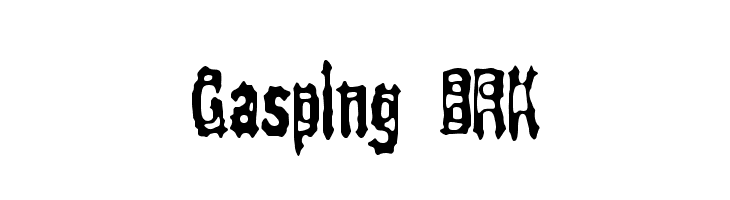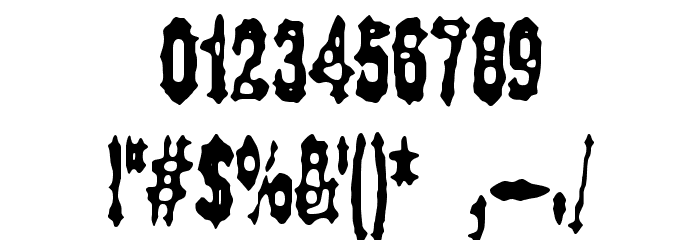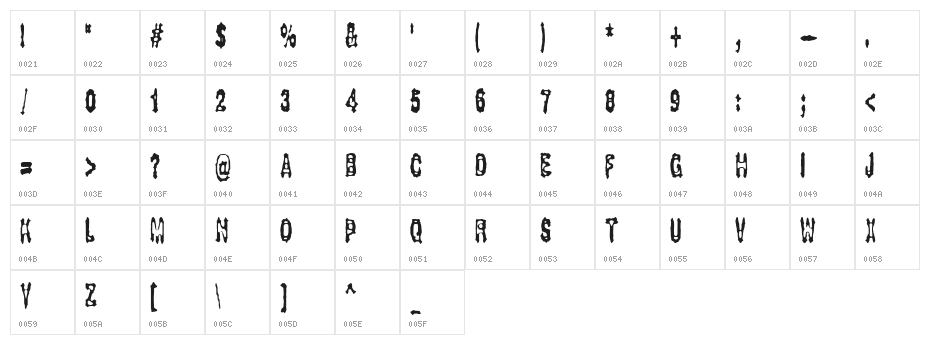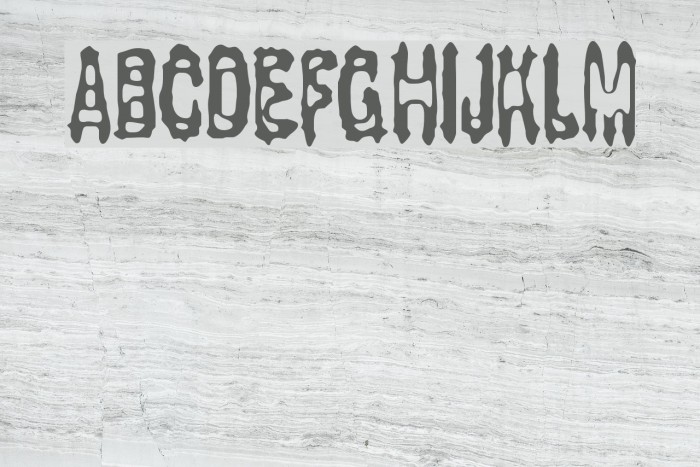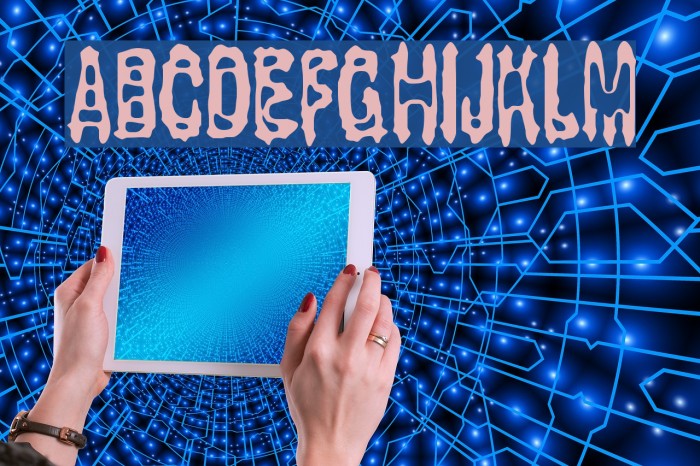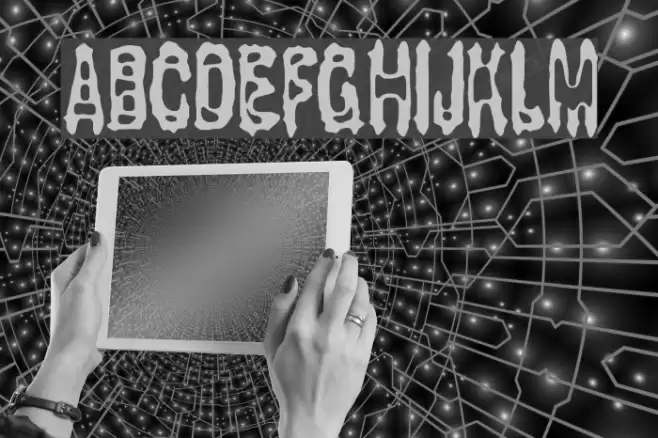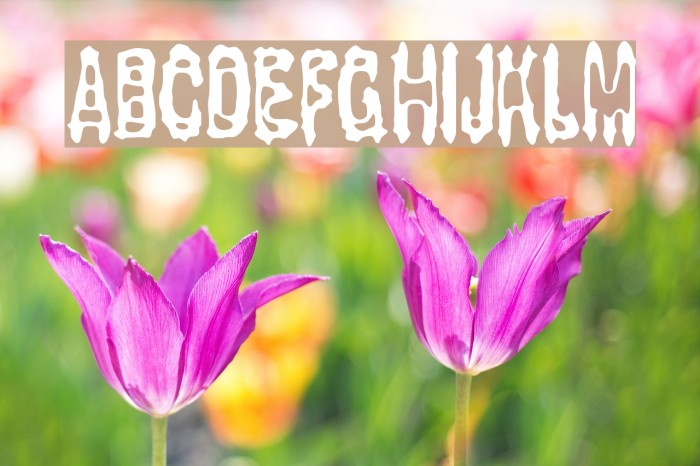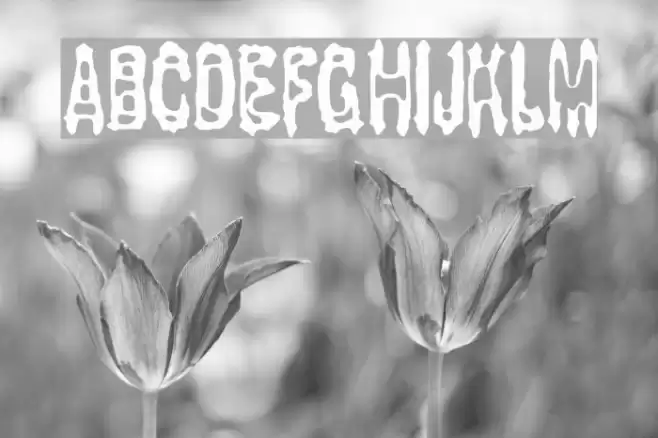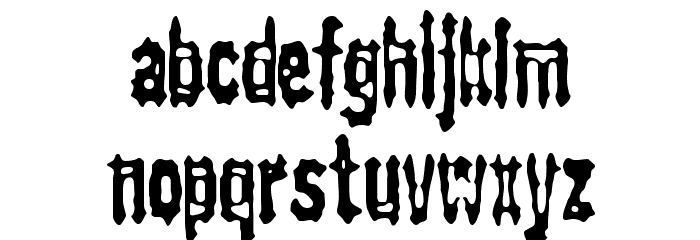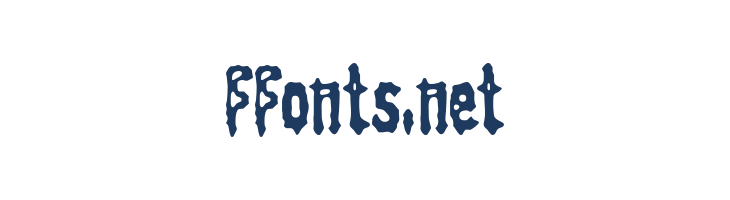
Gasping BRK Font
| Cas d'utilisation | Headlines, Posters, Logos |
| Projets proposés | Ideal for horror-themed posters, album covers, Halloween invitations, or any project needing a dramatic and edgy typeface. |